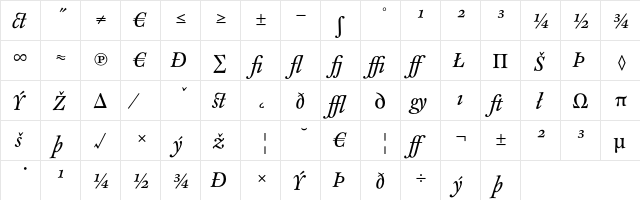
CliffordEighteen ItalicExpert Font Preview
CliffordEighteen ItalicExpert
CliffordEighteen ItalicExpert Font Details
Design Context for CliffordEighteen Typeface
CliffordEighteen is a composed and adaptable typeface that performs quietly and consistently across a wide range of design contexts. The dynamic lean of this cut emphasises speed and emphasis in any layout.
Pro Tip: Try CliffordEighteen for annotation and caption copy alongside an upright companion — the contrast in angle creates a dynamic but ordered typographic system.